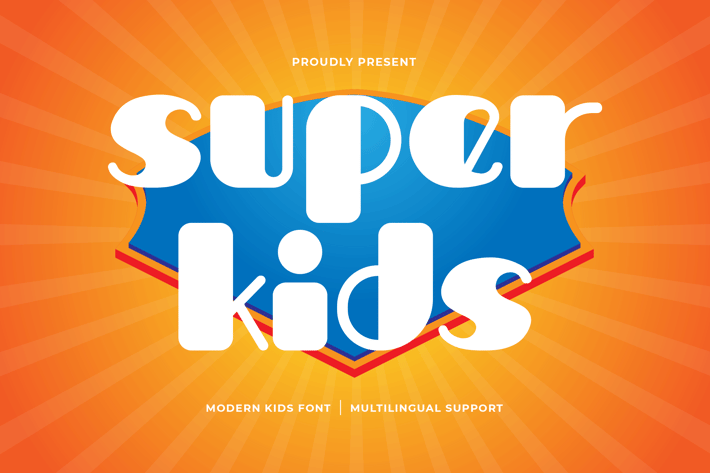
Super Kids - A Modern Kids Font
Super Kids is a vibrant and playful modern kids font designed to bring joy and excitement to your design projects. With its bold shapes and cheerful letterforms, Super Kids is perfect for children's books, fun posters, playful branding, and educational materials. This font captures the energy and creativity of childhood, ensuring your work stands out with a lively and engaging style.
Crafted with a focus on fun, Super Kids features dynamic and approachable characters that offer excellent readability and visual appeal. Its modern and playful design makes it ideal for both display and text purposes, providing a bright and friendly presence. The font’s versatility allows it to adapt seamlessly to various design contexts, from digital media to printed materials, making it a valuable asset for any designer aiming to create joyful and captivating visuals.
Elevate your design projects with Super Kids, a font that embodies the spirit of fun and adventure. Its unique style and adaptability make it an essential addition to any designer’s toolkit for crafting delightful and energetic designs. Enhance your work with Super Kids and experience the joy of modern kids' typography.
Super Kids is a vibrant and playful modern kids font designed to bring joy and excitement to your design projects. With its bold shapes and cheerful letterforms, Super Kids is perfect for children's books, fun posters, playful branding, and educational materials. This font captures the energy and creativity of childhood, ensuring your work stands out with a lively and engaging style.
Crafted with a focus on fun, Super Kids features dynamic and approachable characters that offer excellent readability and visual appeal. Its modern and playful design makes it ideal for both display and text purposes, providing a bright and friendly presence. The font’s versatility allows it to adapt seamlessly to various design contexts, from digital media to printed materials, making it a valuable asset for any designer aiming to create joyful and captivating visuals.
Elevate your design projects with Super Kids, a font that embodies the spirit of fun and adventure. Its unique style and adaptability make it an essential addition to any designer’s toolkit for crafting delightful and energetic designs. Enhance your work with Super Kids and experience the joy of modern kids' typography.